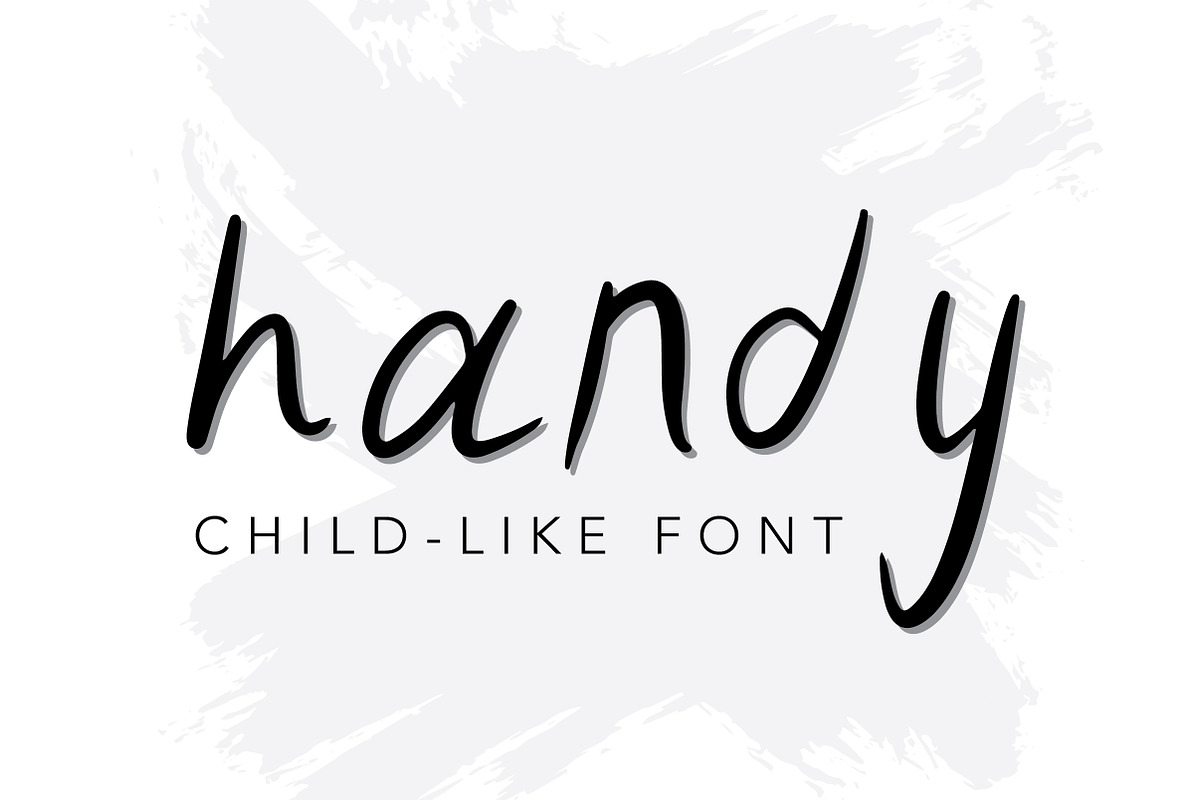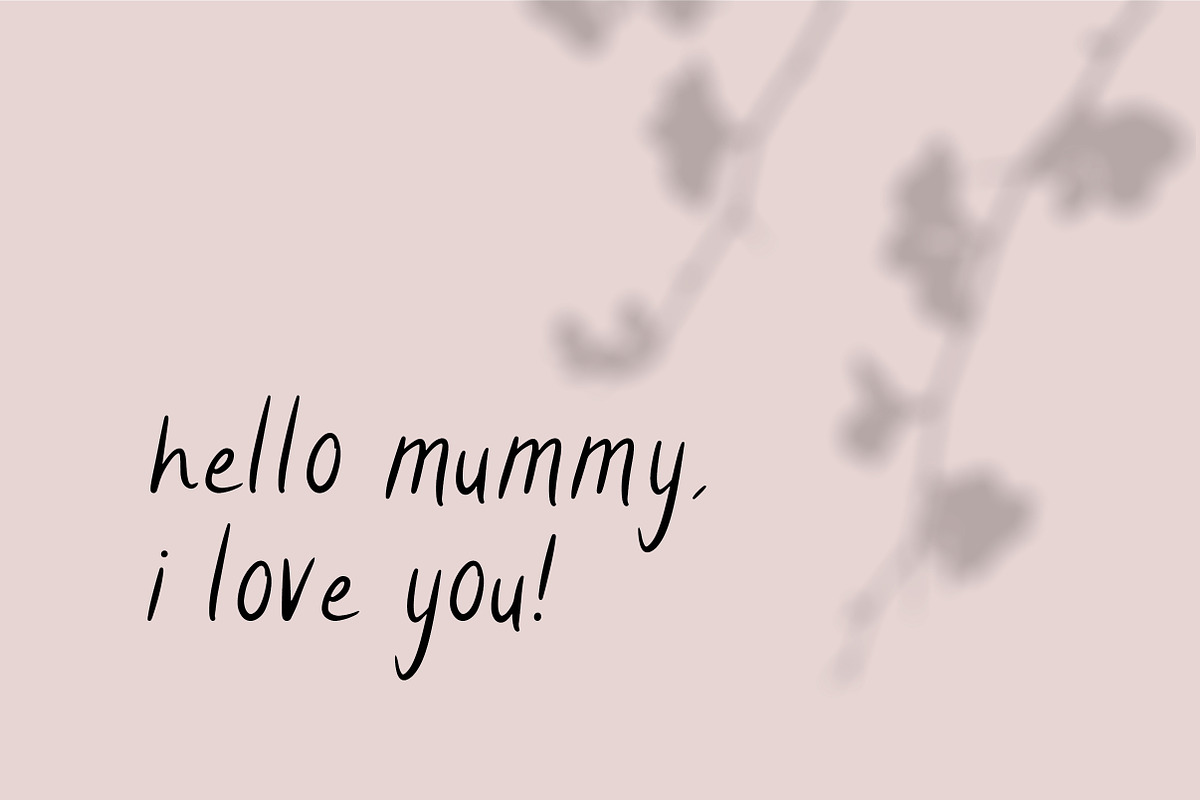
Handy | Hand Written Font
h a n d yA child-like hand written sans serif font
Say hello for our first font experiment. Want to recreate a child-like hand written look? Handy is the font for you.
Currently only lowercase letters and essential ligatures